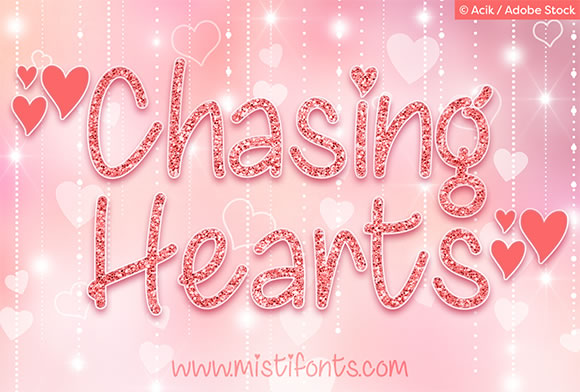
Journey into the world of Chasing Hearts, a captivating script font that echoes the elegance of handwritten notes. Crafted by the imaginative Misti, this font is an exquisite blend of playfulness and sophistication, adding a touch of heartfelt charm to your creative endeavors.
With Chasing Hearts by your side, transform your Valentine's Day greetings into masterpieces that convey love and warmth. Let your greeting cards dance with heartfelt messages, crafted with a font that speaks of affection and joy. Go beyond the traditional boundaries of the holiday and embrace the year-round versatility of Chasing Hearts.
Unleash your creativity and adorn product labels with whimsical designs, allowing your products to stand out on shelves while capturing the hearts of customers. Engage in delightful craft projects, where Chasing Hearts weaves its magic, turning ordinary materials into works of art. Create logos that exude elegance and charm, leaving a lasting impression on clients and partners.
With its enchanting flow and graceful curves, Chasing Hearts dances across invitations, adding a touch of romance and personality to special occasions. Whether it's a wedding, anniversary, or any celebration of love, Chasing Hearts sets the stage for memories that will be cherished forever.